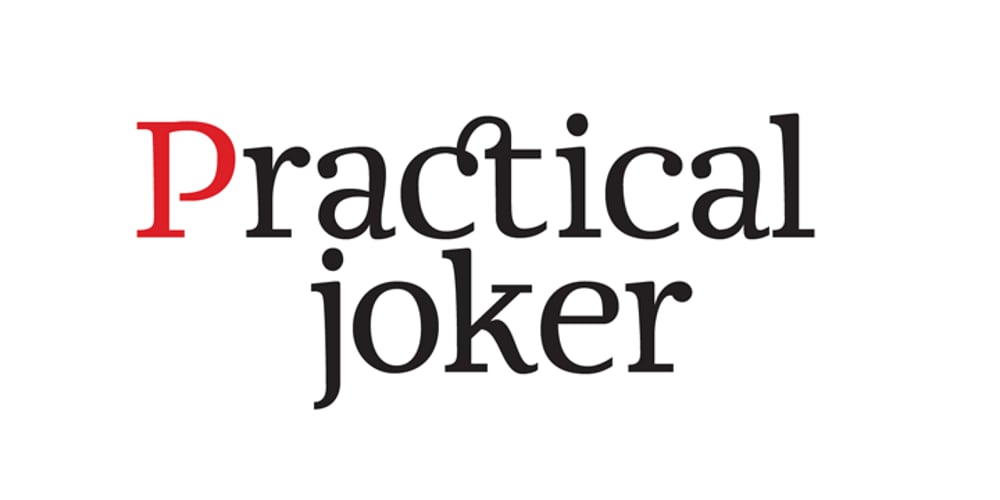
Signorina Font Family was designed by Jesus Barrientos and published by Talavera. Signorina contains 1 styles and family package options. Signorina is a funny font (a “funnty”?) not to be taken so seriously. It reminds me of slab serif designs, but jelly-stuffed instead of having wood. This font also works very well on small sizes because of it’s tall x height. You can use this kind of font on both text and titles.